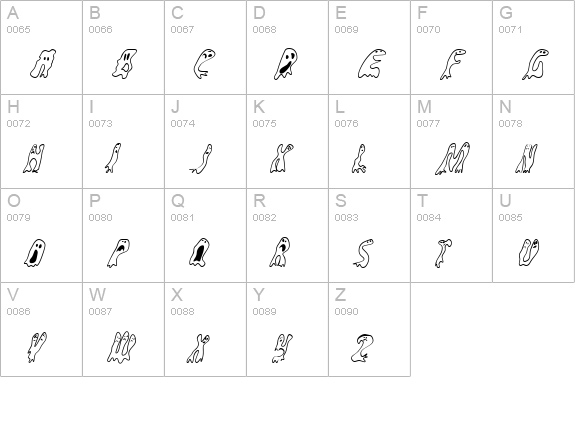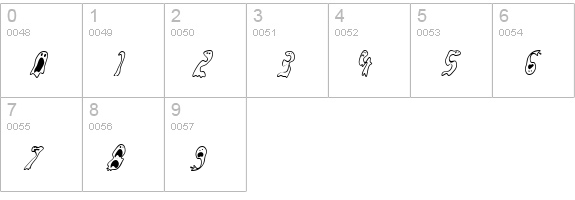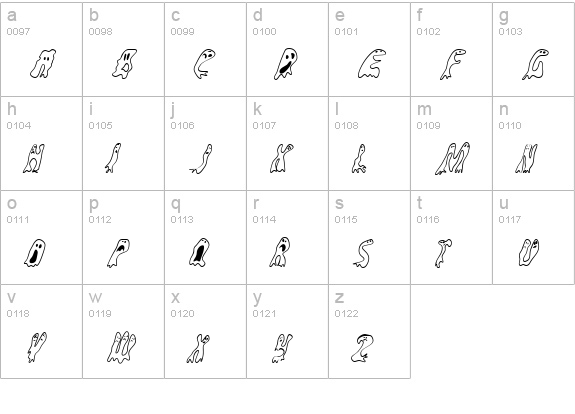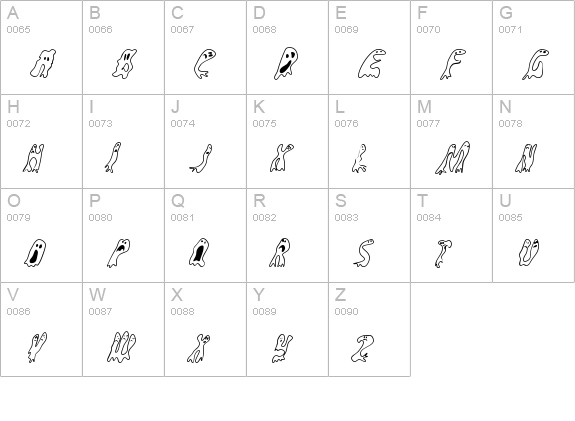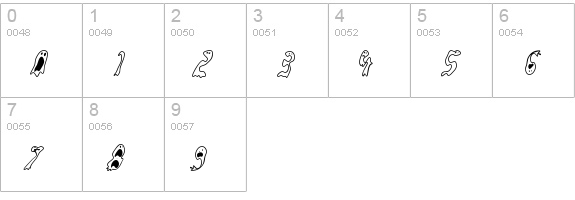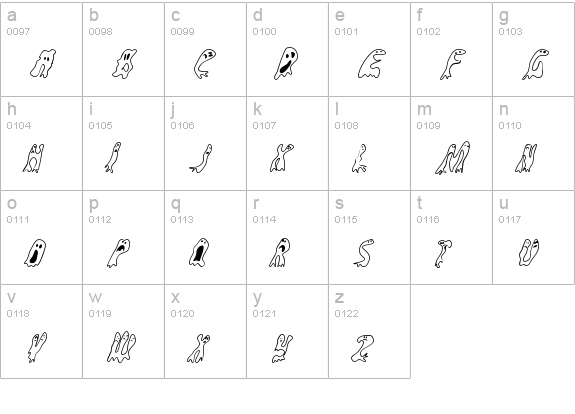
GroovyGhosties Font Details
Introducing GroovyGhosties font, a whimsical and playful typeface perfect for adding a spooky touch to your designs. This font features quirky and charming ghostly elements that will bring a fun and lighthearted feel to any project. With its unique design and eye-catching appearance, GroovyGhosties is sure to make your text stand out. The best part is that GroovyGhosties font is completely free for personal and commercial use. You can easily download this font at FontsMarket.com and start using it right away to add a touch of ghostly charm to your designs. Whether you're working on Halloween-themed projects, party invitations, or any other creative endeavor, GroovyGhosties font is the perfect choice to add a playful and spooky vibe. Add a touch of fun to your designs with GroovyGhosties font today!